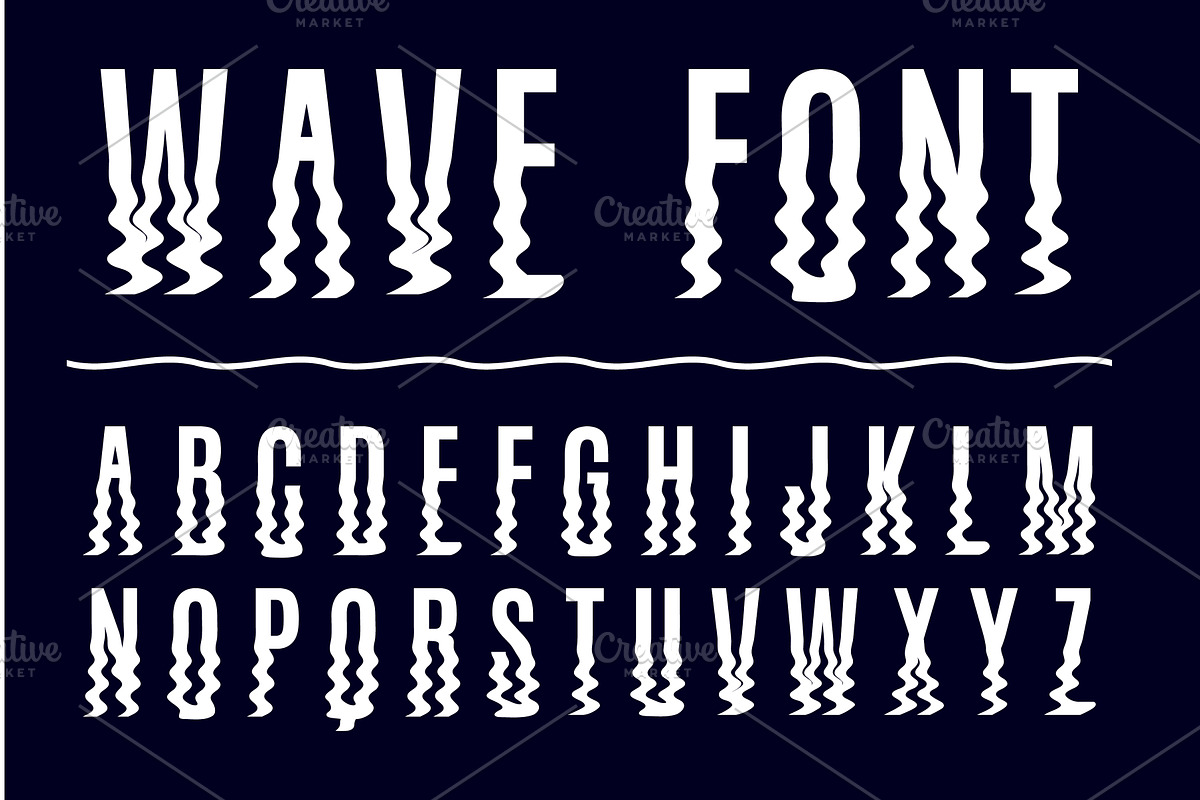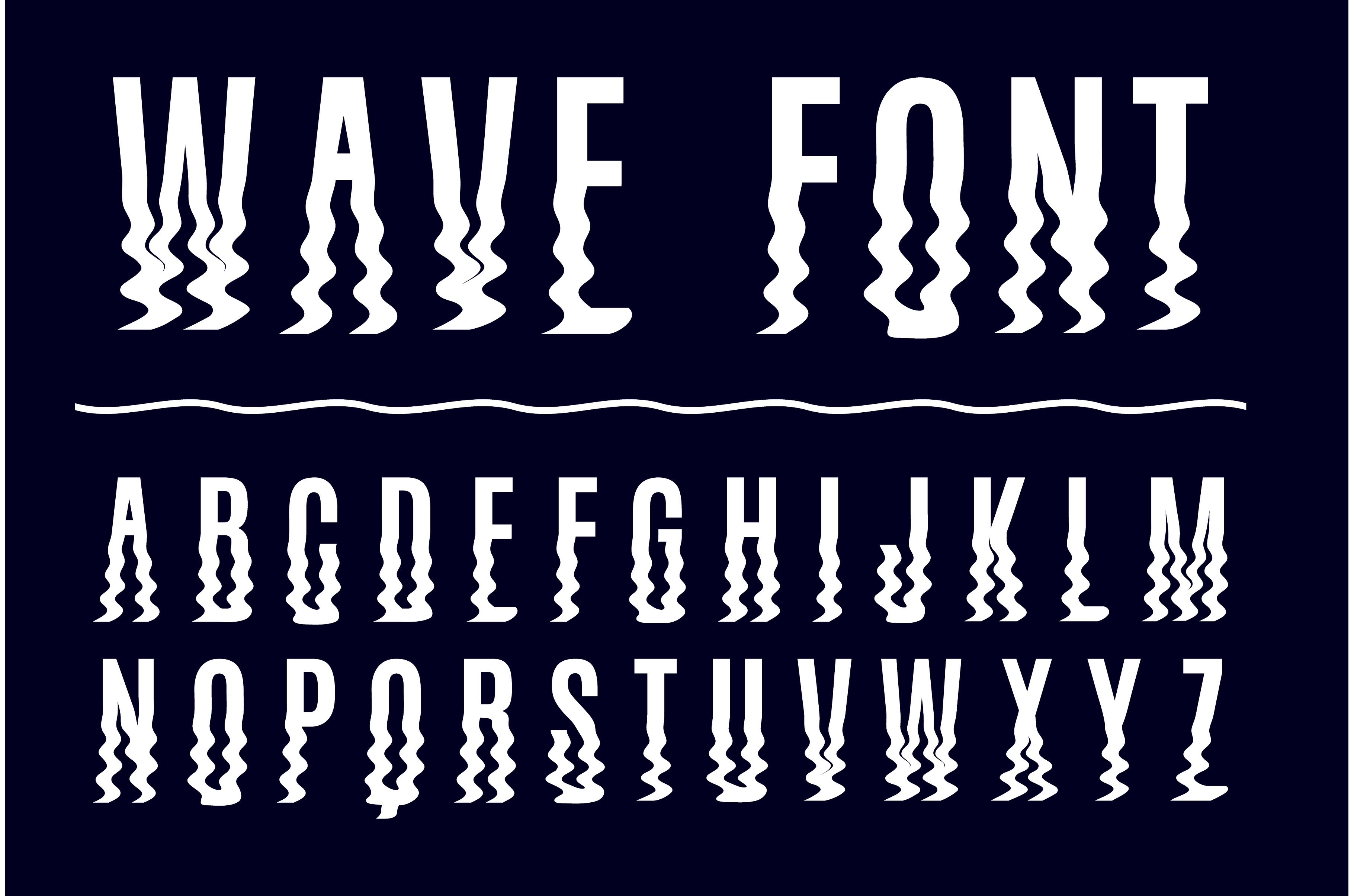
Ripple effect font. Reflected in
Ripple effect font. Reflected in water. Wavy silhouette of uppercase letters and numbers. Smooth zigzag alphabet. Distorted lower parts. Typography typeset. Curved ABC. Vector alphabetical icons set